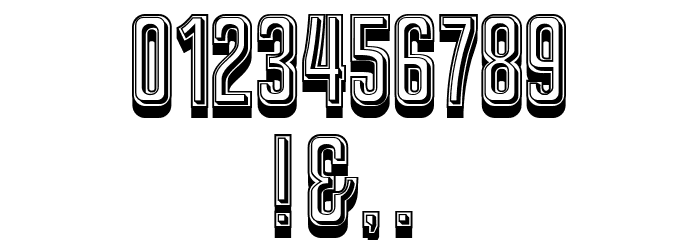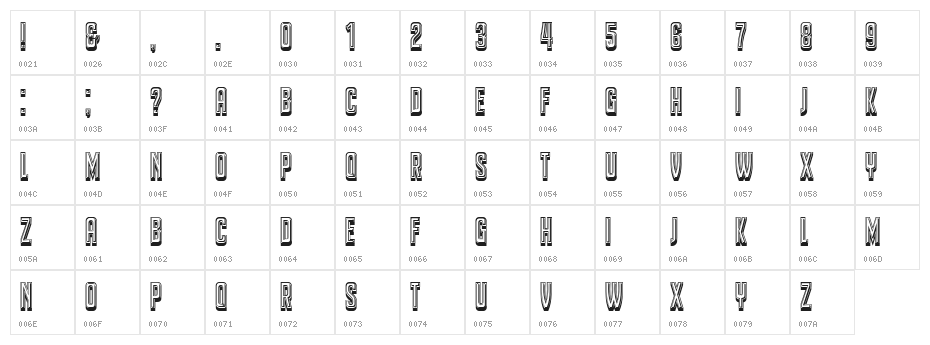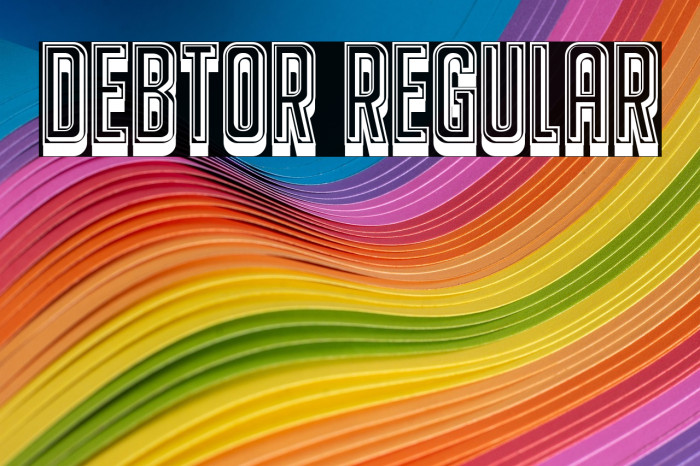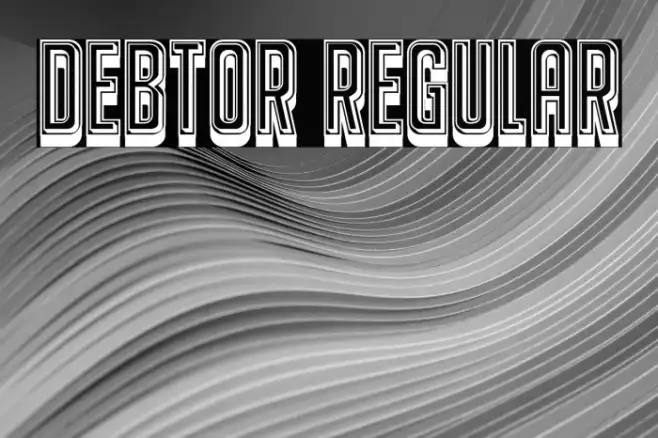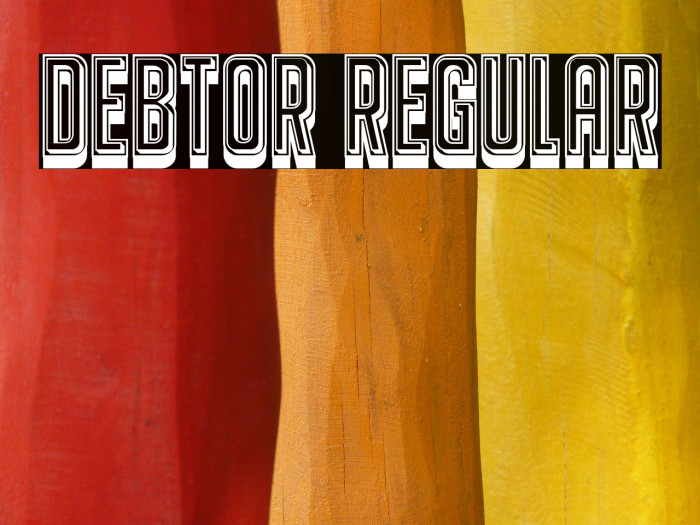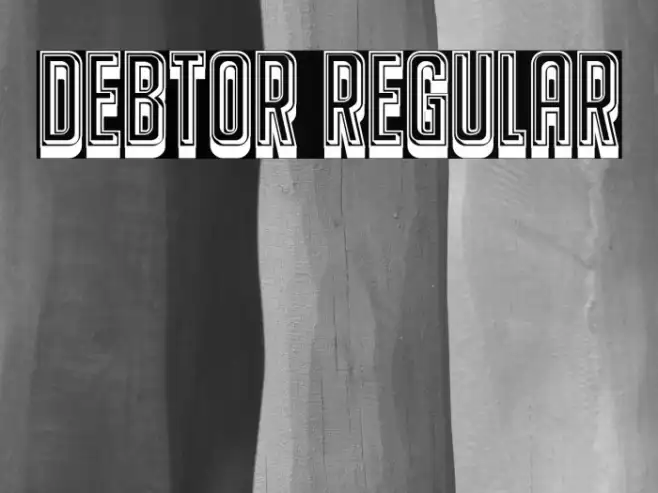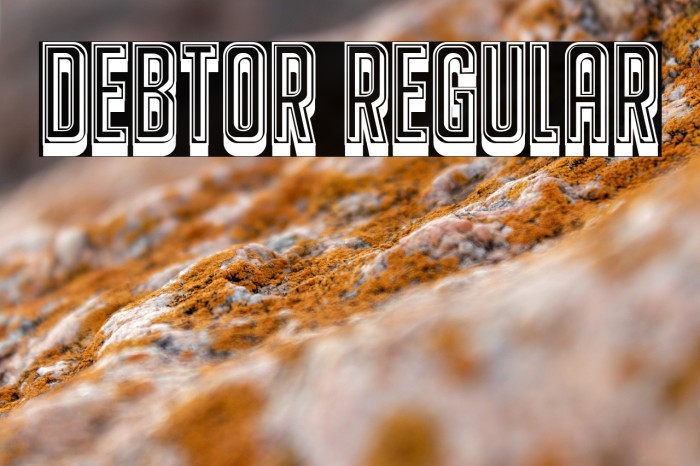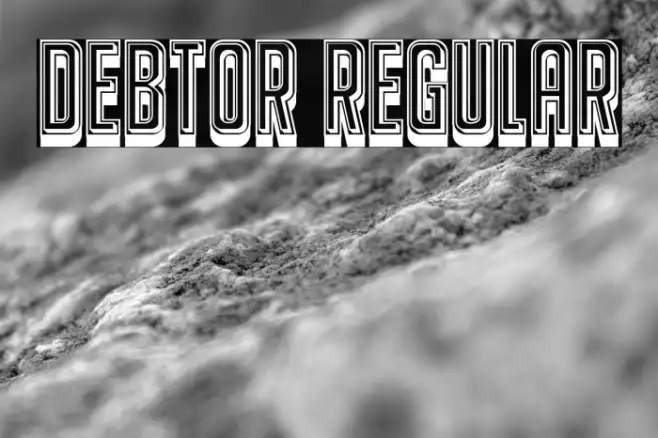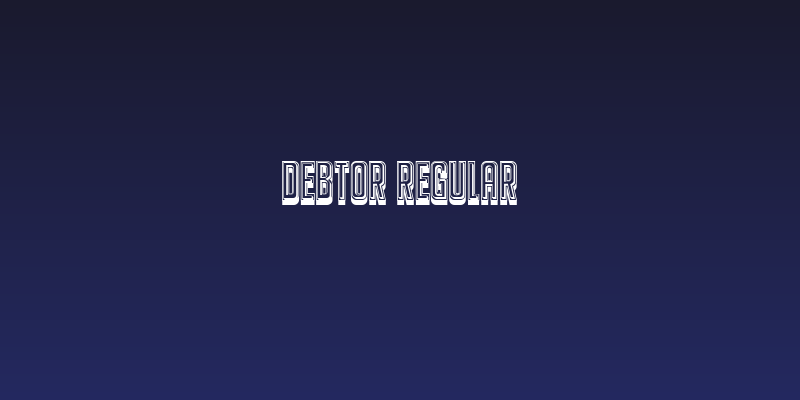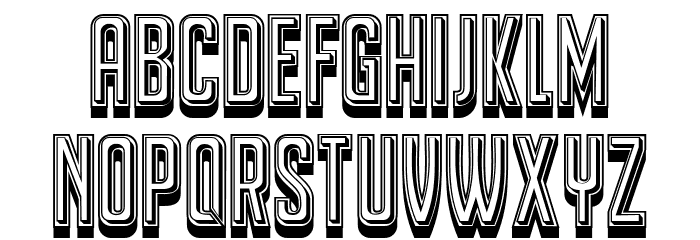
Debtor Regular Font
Debtor Regular Description
This font features a bold, three-dimensional appearance with a distinct shadow effect that gives each character a sense of depth. The uppercase letters are designed with a strong geometric structure, while the numerals and special characters maintain the same bold style. The font's design is eye-catching and impactful, making it ideal for creating standout headlines or titles. Its decorative nature is enhanced by the shadowing, which adds a layer of complexity and visual interest. The characters are evenly spaced, ensuring readability despite the intricate design.
| Proposed Projects | Ideal for posters, logos, headlines, and any project requiring a bold, attention-grabbing typeface. |